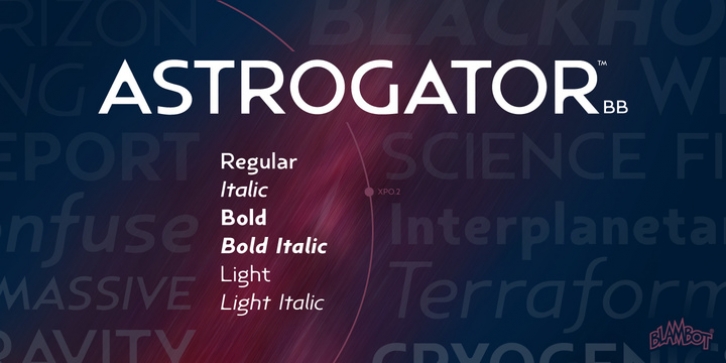
Astrogator BB downloadDesigner: Nate Piekos
Publisher: Blambot
Astrogator is a sans font family that’s been taken on a fantastical journey to other worlds. Clean and legible, this title/body copy font has a subtle science fiction flair. Includes Regular, Italic, Bold, Bold Italic, Light, and Light Italic.